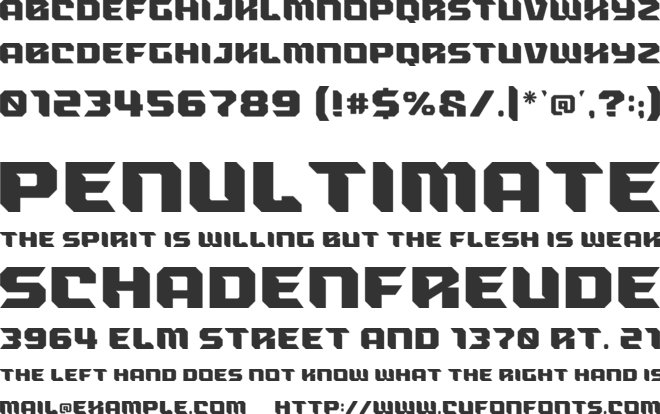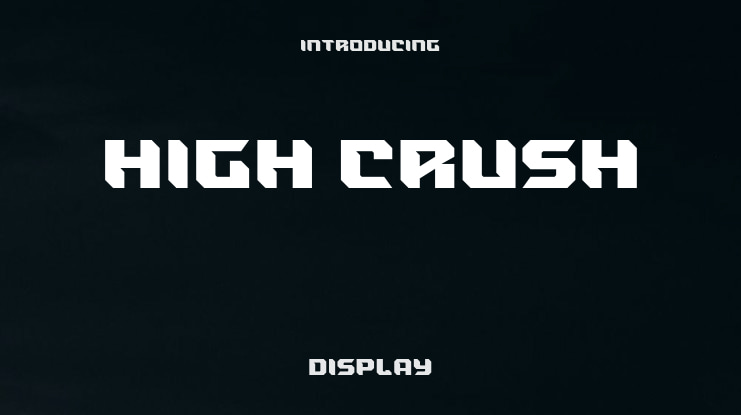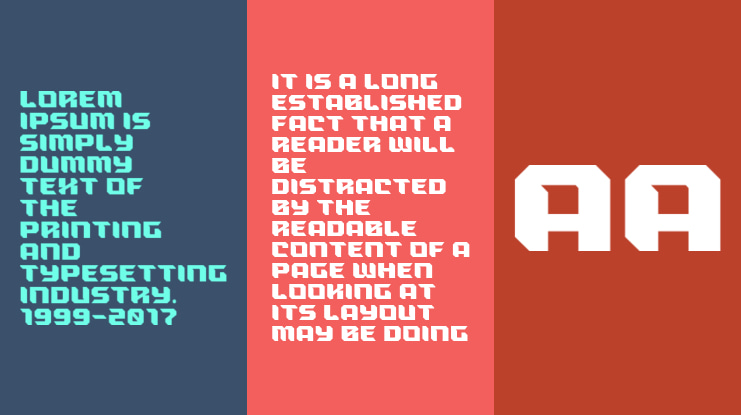
High Crush Font
A visual reflection of progress and dynamism. Elevate your design projects to the next level with our cutting-edge Bold Techno Sport Display Fonts.NOTE :- This font is PERSONAL USE ONLY, NO COMMERCIAL USED ALLOWED.- Link to purchase Full Version and Commercial license : https://onedsgn.com/product/high-crush-bold-techno-display/